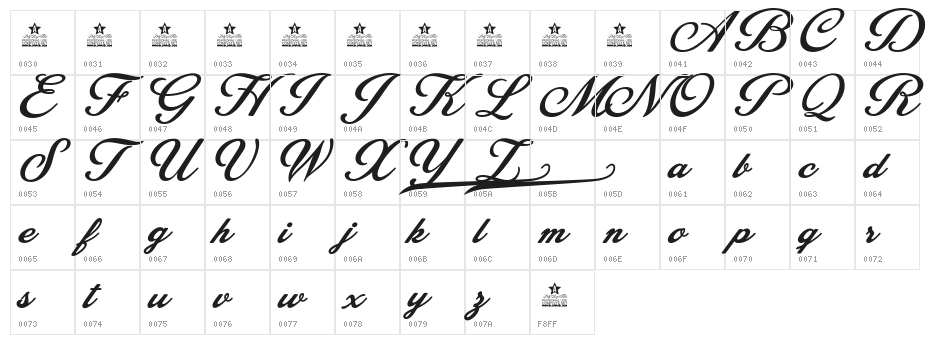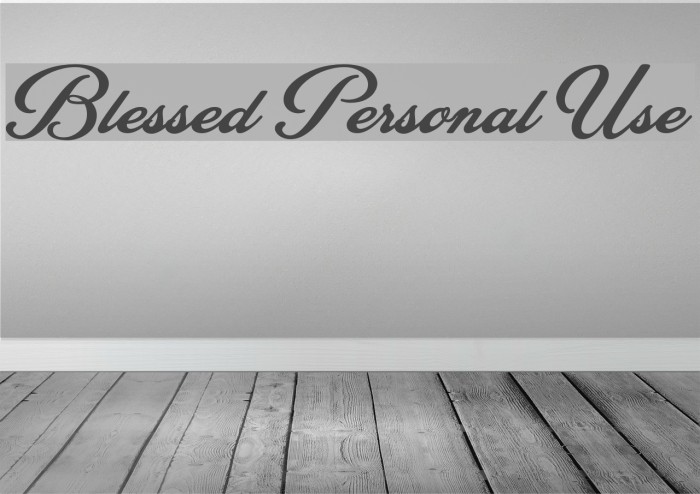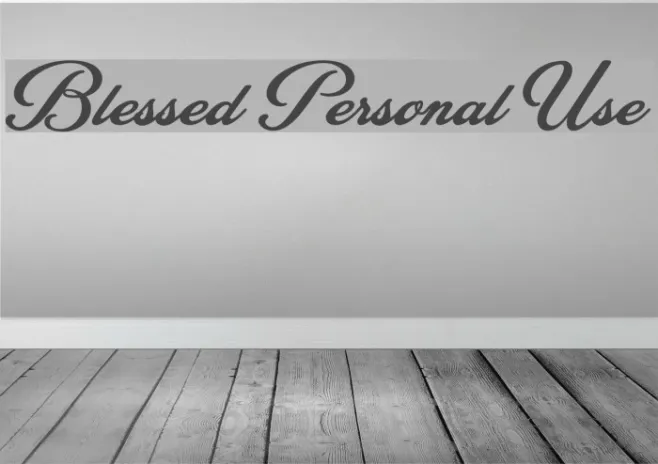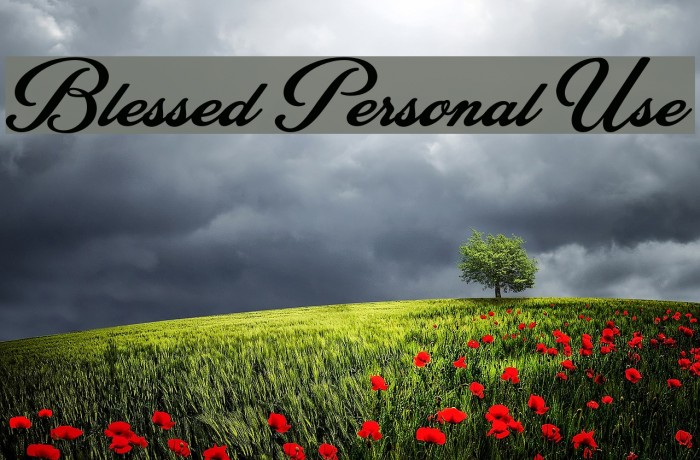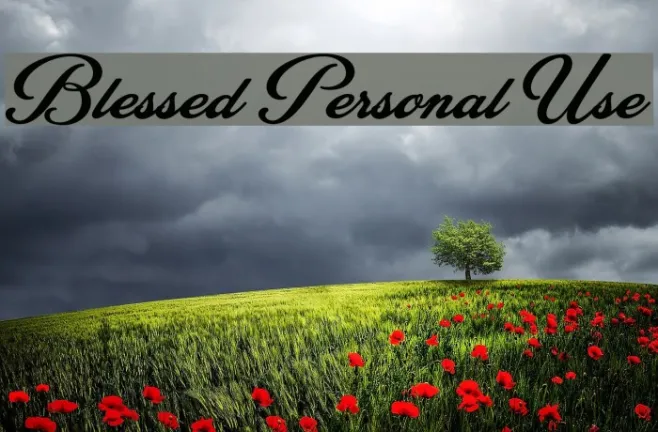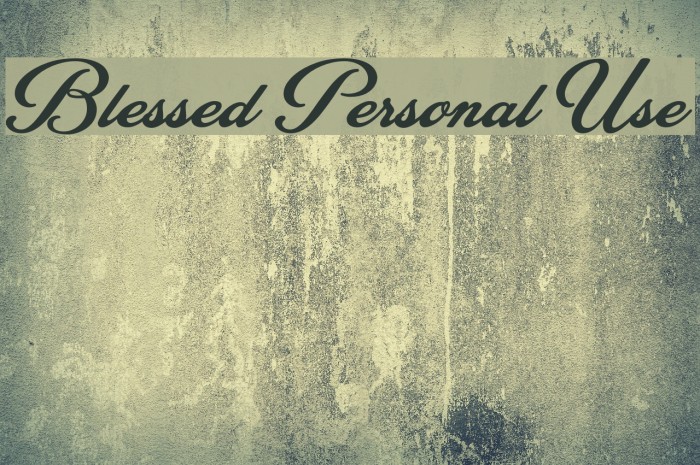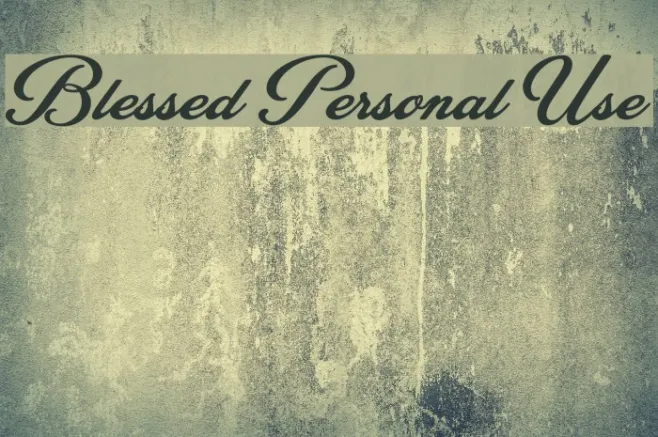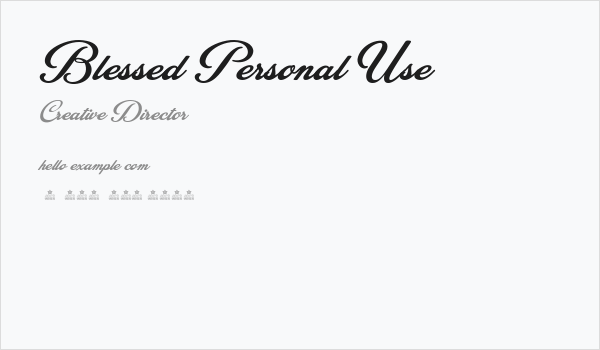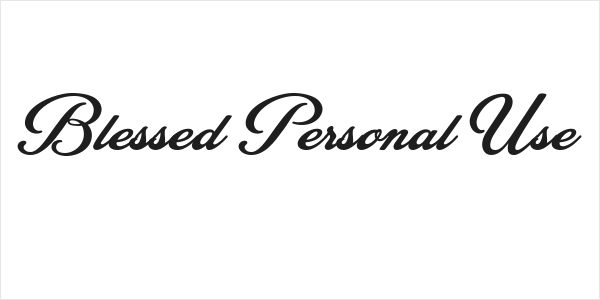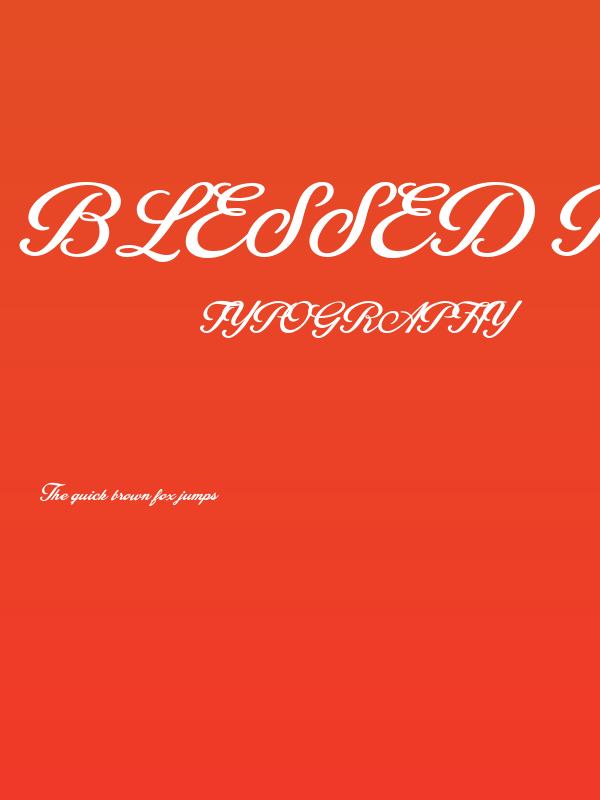
Blessed Personal Use Font
Blessed Personal Use Description
This font features an elegant and flowing script style, characterized by its smooth, cursive strokes and graceful curves. The uppercase letters are ornate, with intricate loops and swirls that add a touch of sophistication. The lowercase letters maintain a consistent flow, enhancing readability while preserving the decorative nature. The numbers and special characters are designed to match the overall aesthetic, ensuring a cohesive look across all text. This font exudes a sense of elegance and formality, making it suitable for projects that require a touch of class and refinement.
| Use Case | Logos, Invitations, Decorative Text |
| Proposed Projects | Ideal for wedding invitations, elegant branding, formal event materials, and decorative signage. |